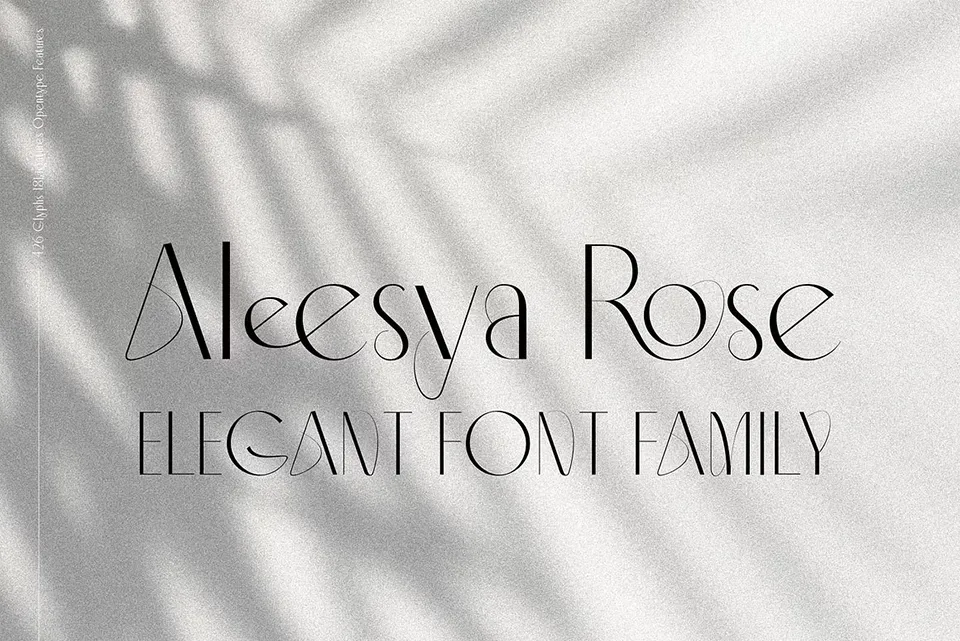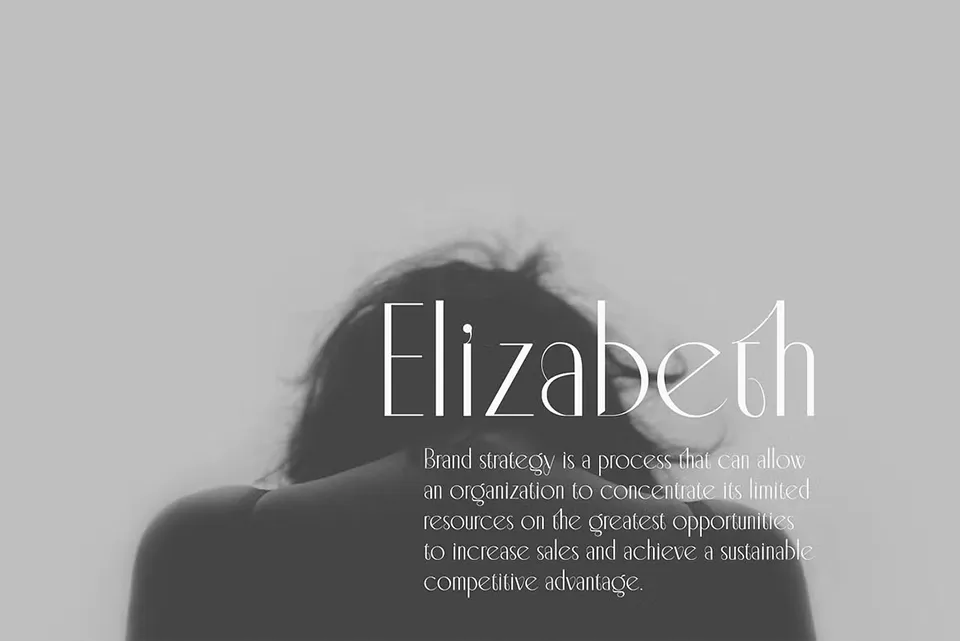
Aleesya Rose Font
Aleesya Rose Font is a stylish and elegant sans serif display font family designed to bring a touch of sophistication to any project. With 14 styles including 7 weights and matching italics, it offers clear contrast and refined ligatures that make it ideal for fashion branding, luxury packaging, invitations, and more. The font’s modern yet graceful character allows designers to create detailed and expressive typography for both personal and professional use.